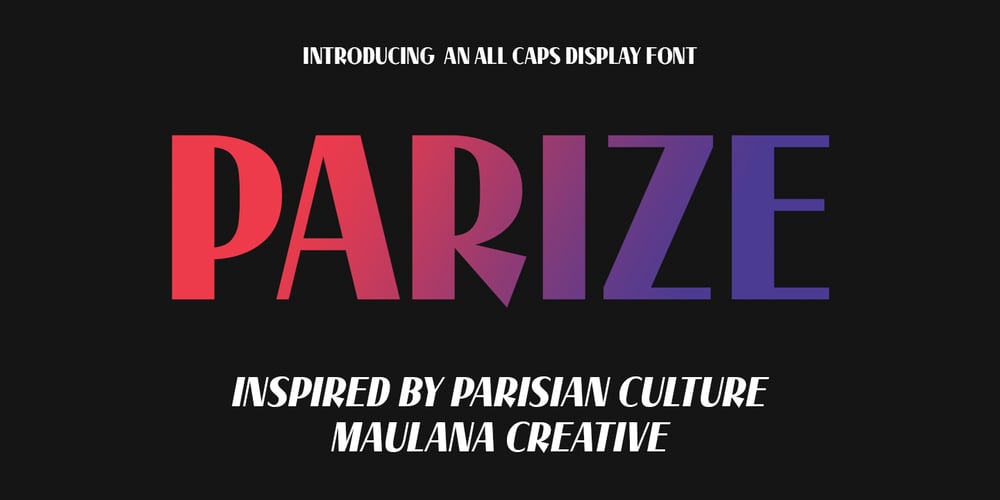
MC Parize Display Font
MC Parize Display Font Font Family was designed by Gilang Maulana and published by Maulana Creative. MC Parize Display Font contains 1 styles and family package options. Parize is a decorative display font. Bold stroke, fun character with a bit of ligatures and alternates. To give you an extra creative work. Parize font support multilingual more than 100+ language. This font is good for logo design, Social media, Movie Titles, Books Titles, a short text even a long text letter and good for your secondary text font with script or serif. Make a stunning work with Parize font.Cheers,Maulana Creative